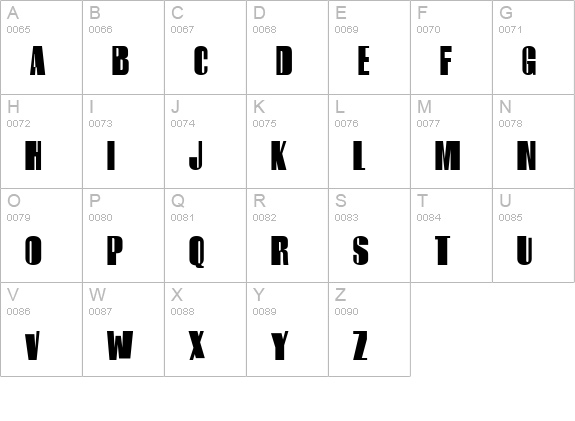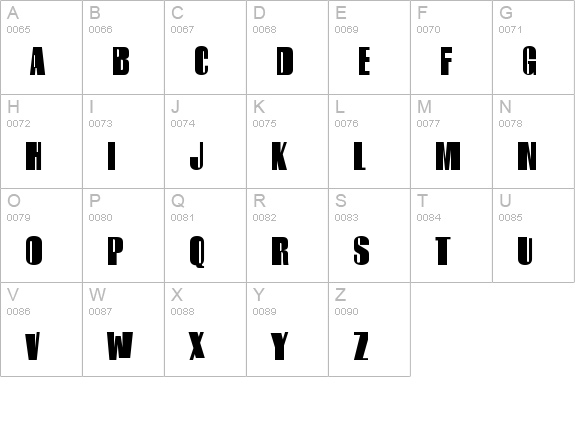
Harlem Bold is a strong, high-contrast variant in the Harlem typeface family \xE2\x80\x94 well suited to headlines, attention-grabbing titles, and strong calls-to-action.
Harlem Bold is a stunning and dynamic font that exudes confidence and strength. Its bold and powerful letterforms make a statement that cannot be ignored. This font is perfect for capturing attention and creating a lasting impression in various design projects. With its strong and impactful appearance, Harlem Bold is ideal for headlines, logos, posters, and any other design that requires a bold and commanding presence. Its unique and artistic design adds a touch of sophistication and modernity to any creative endeavor. One of the best things about Harlem Bold is that it is freely available to download at FontsMarket.com. This means that designers and typographers can easily access this remarkable font without any cost. Whether you're a professional designer or simply someone who enjoys experimenting with typography, Harlem Bold offers endless possibilities for creating visually striking and captivating designs. The versatility of Harlem Bold allows it to be used in a wide range of projects, from branding and advertising to web design and print media. Its clean and legible characters ensure that your message is conveyed clearly and effectively, while its bold and striking appearance adds a touch of personality and flair to your designs. If you're looking for a font that embodies strength, confidence, and modernity, look no further than Harlem Bold. Its free availability at FontsMarket.com makes it even more appealing, as you can effortlessly incorporate this stunning font into your projects without any financial burden. Download Harlem Bold today and discover the endless possibilities it offers for creating impactful and unforgettable designs.